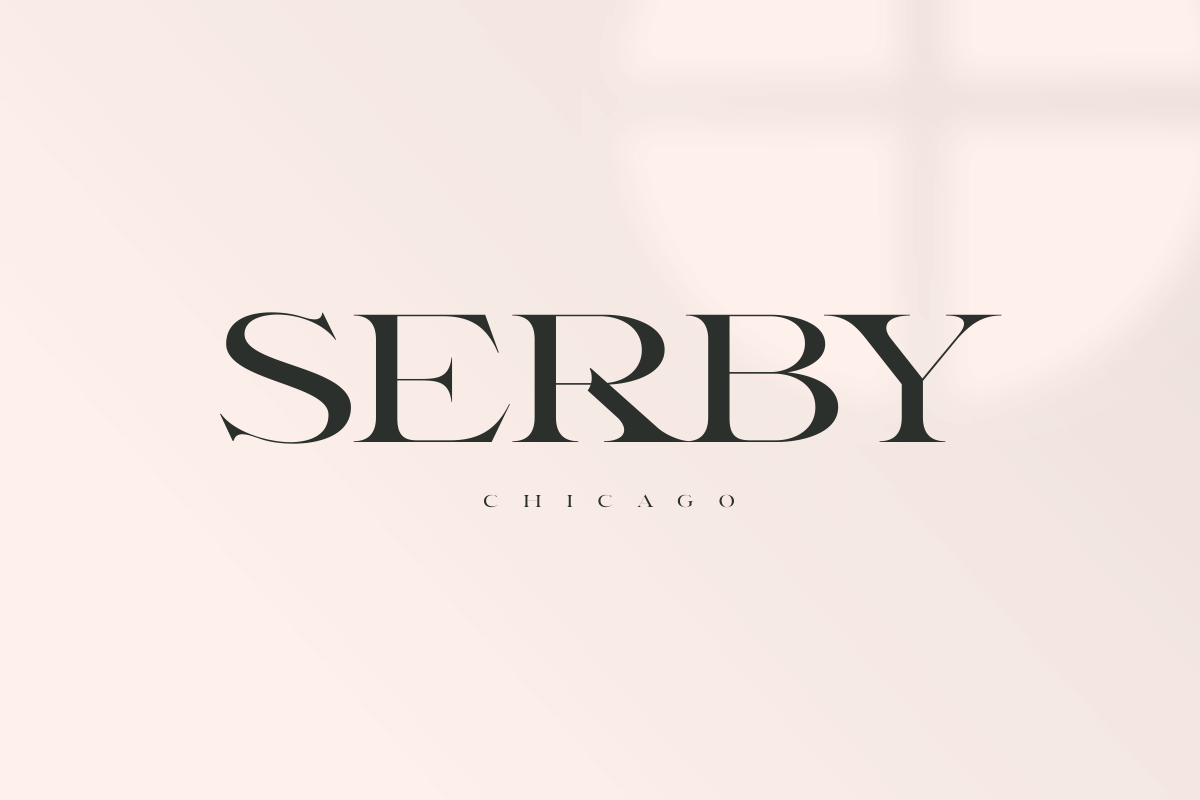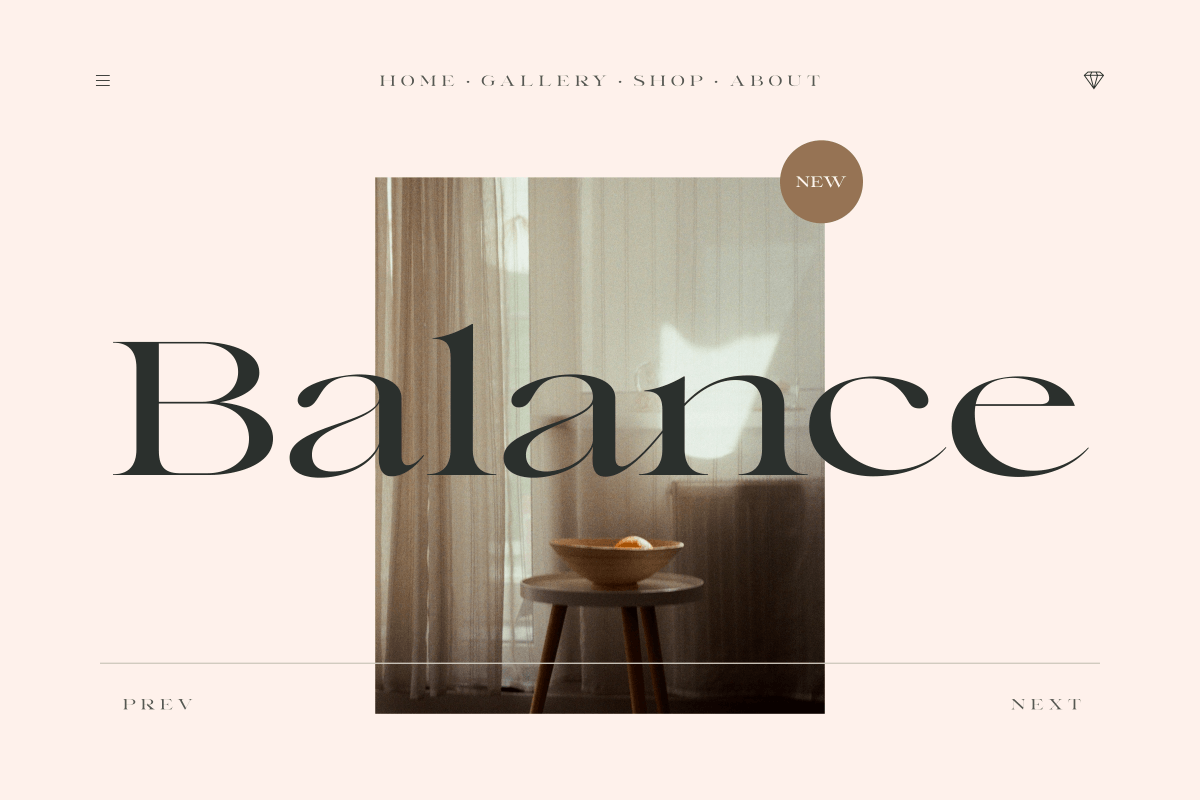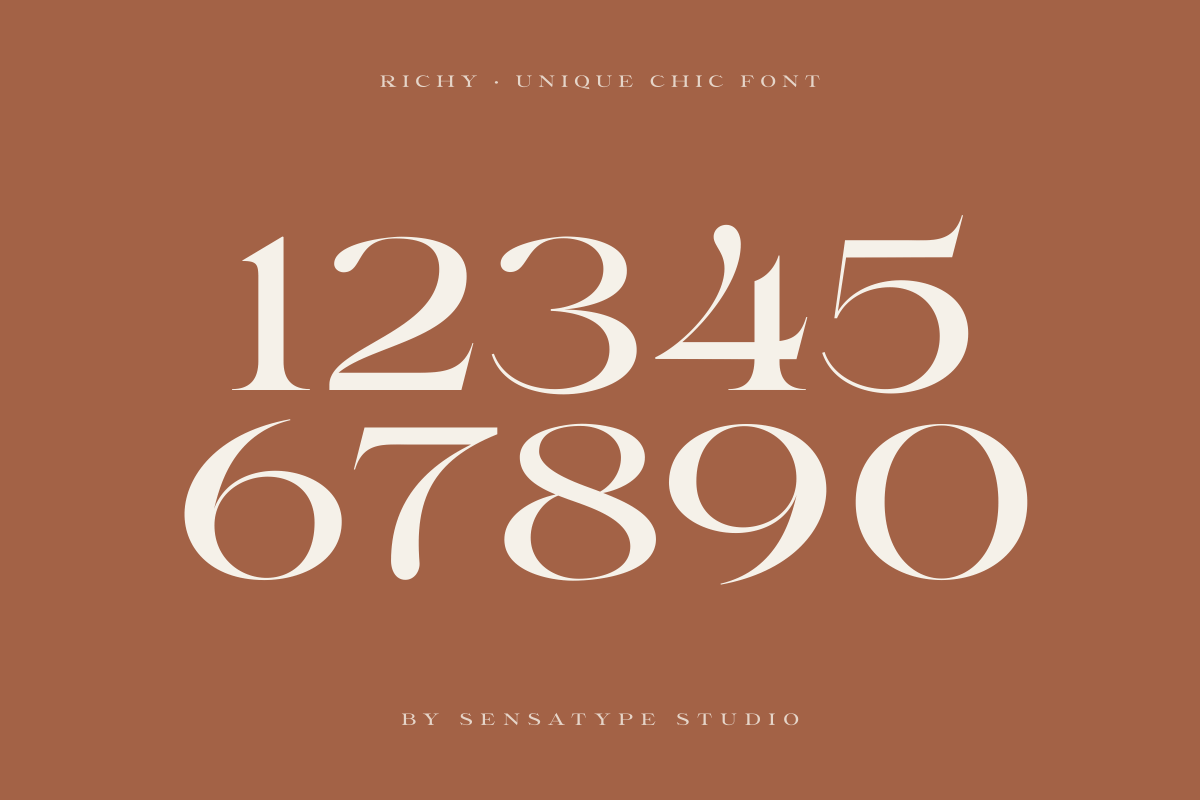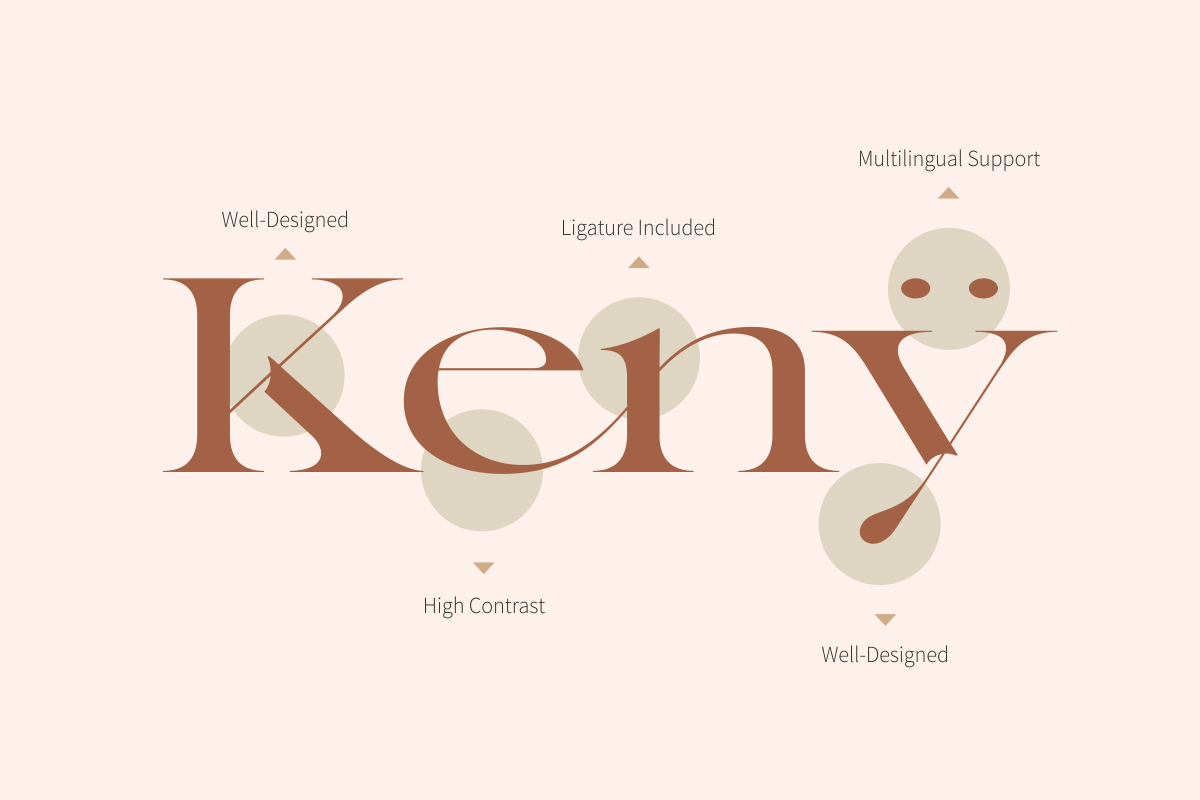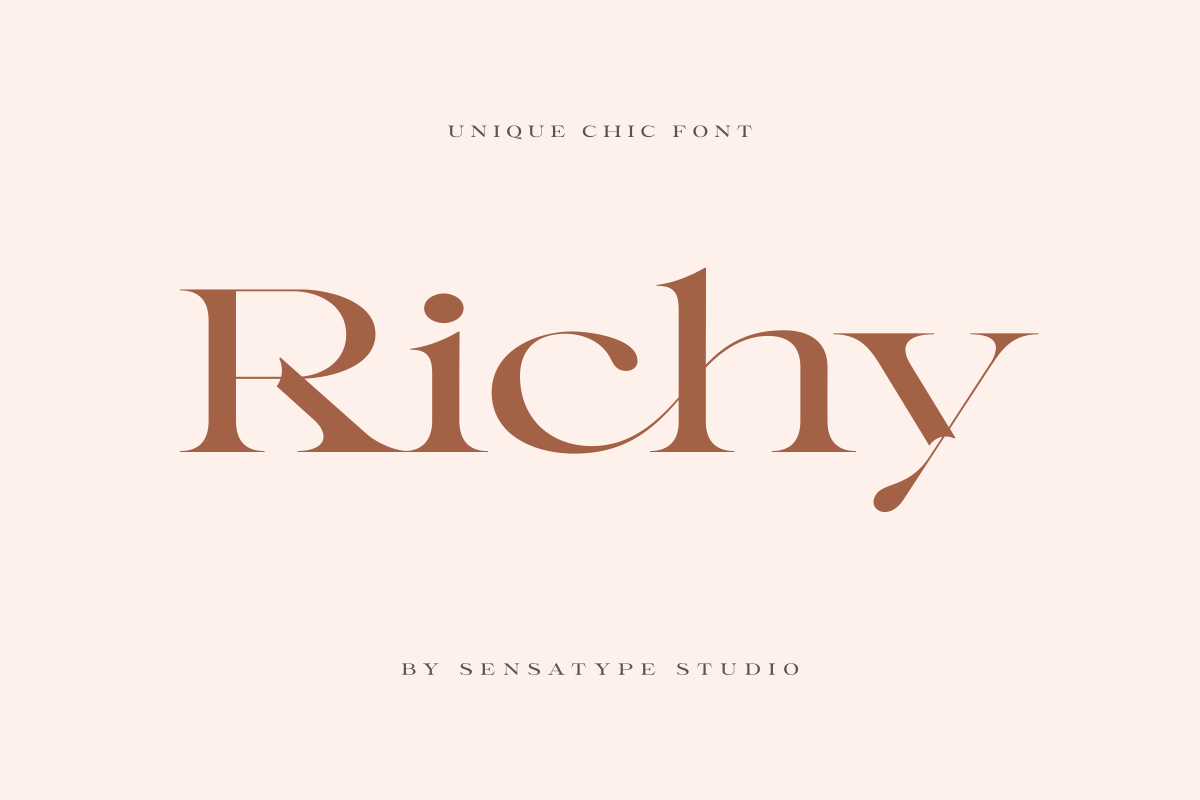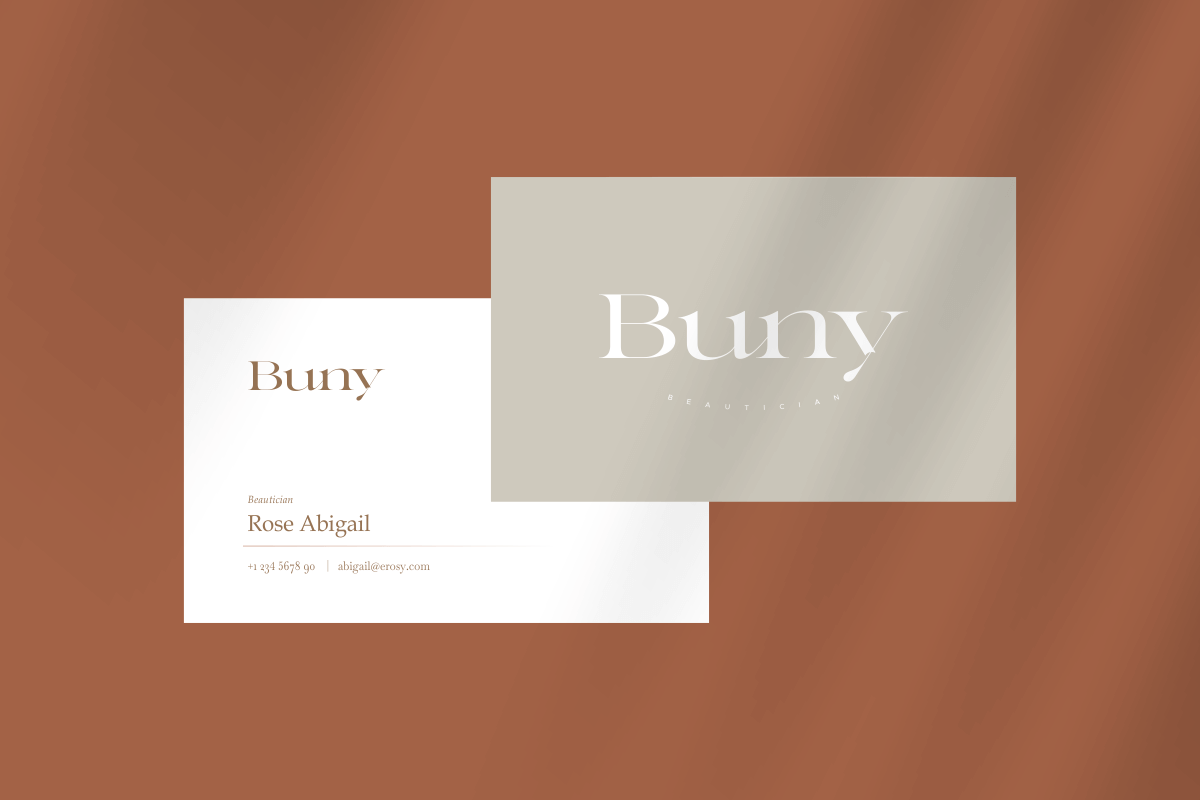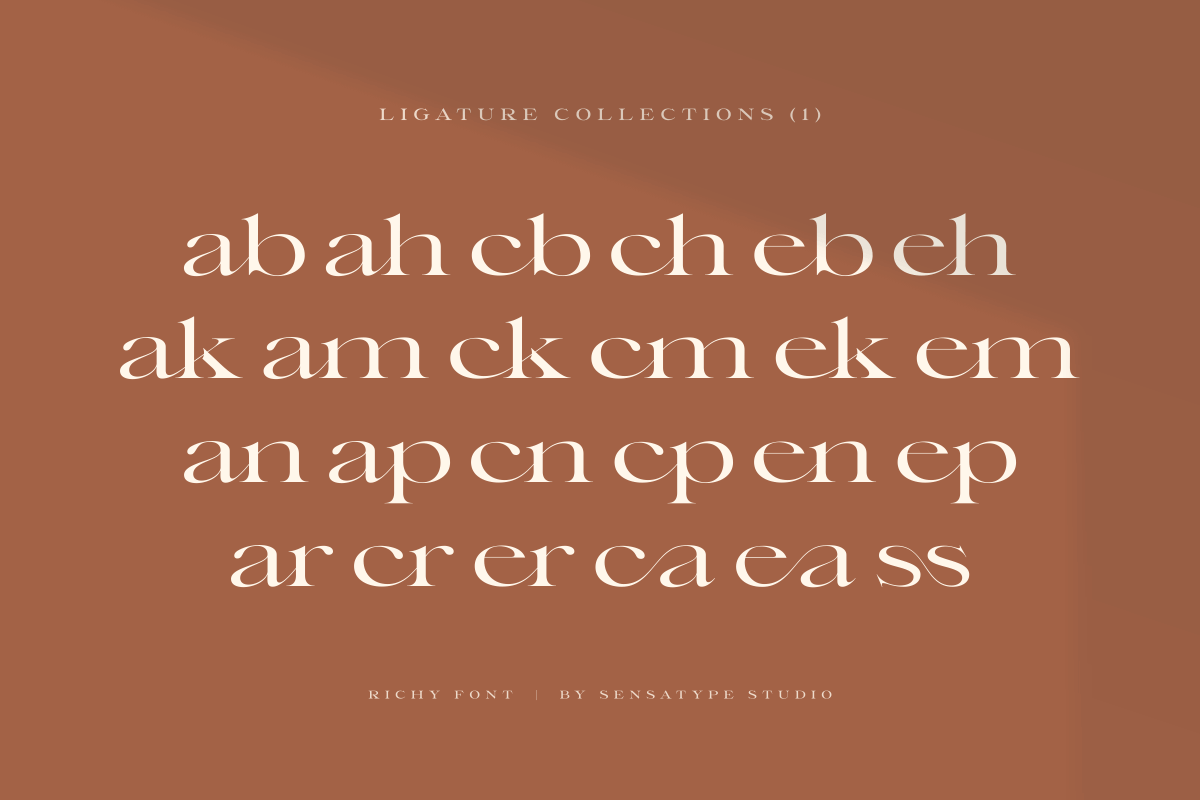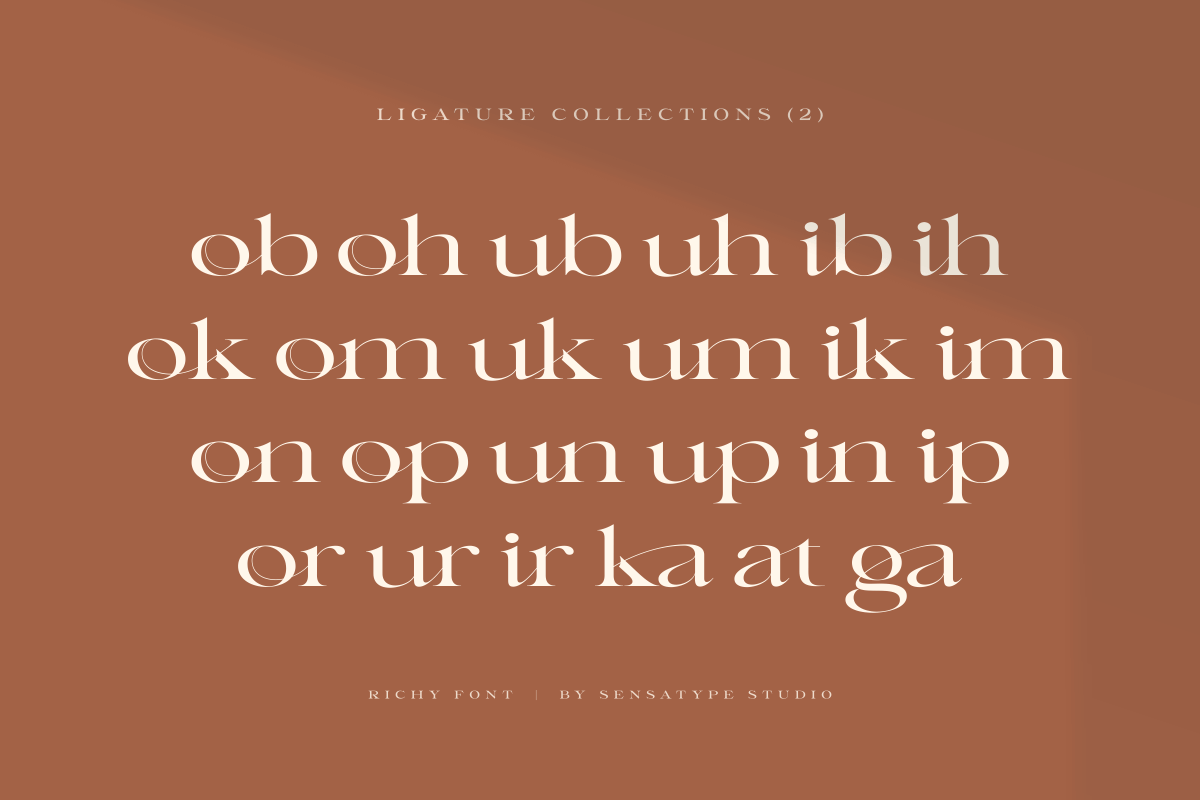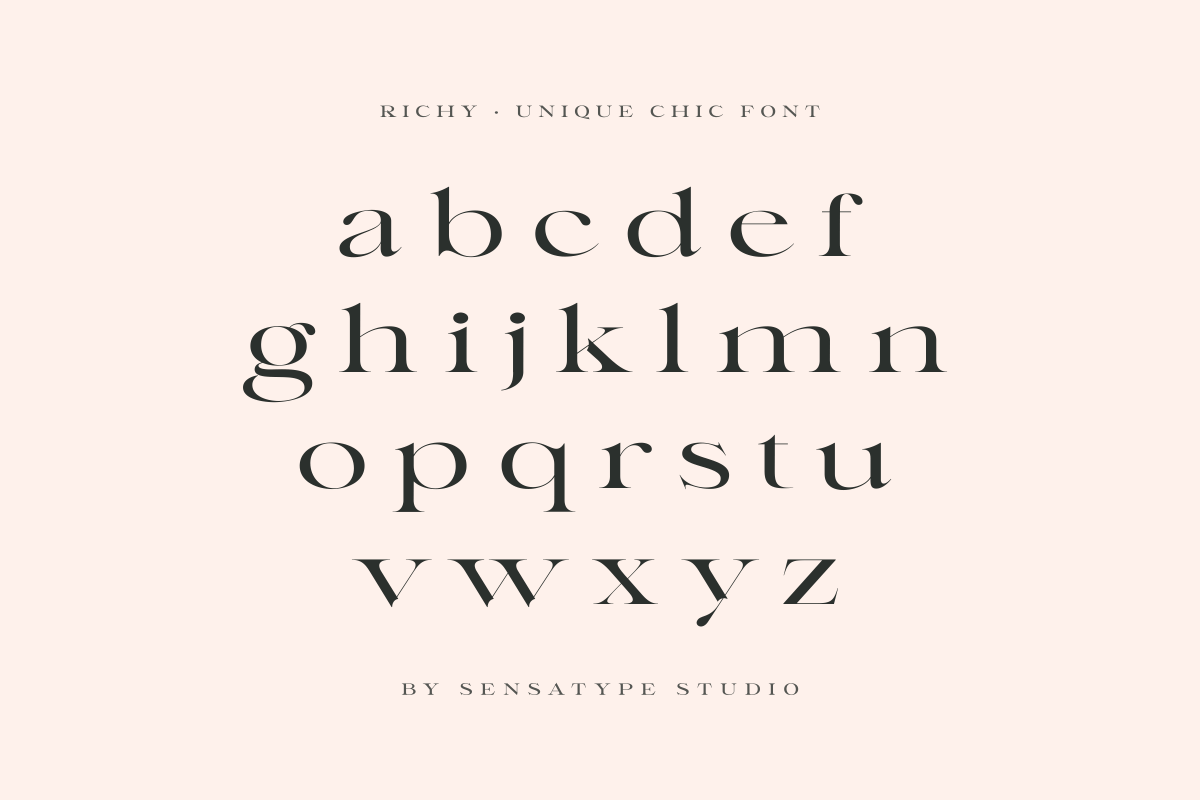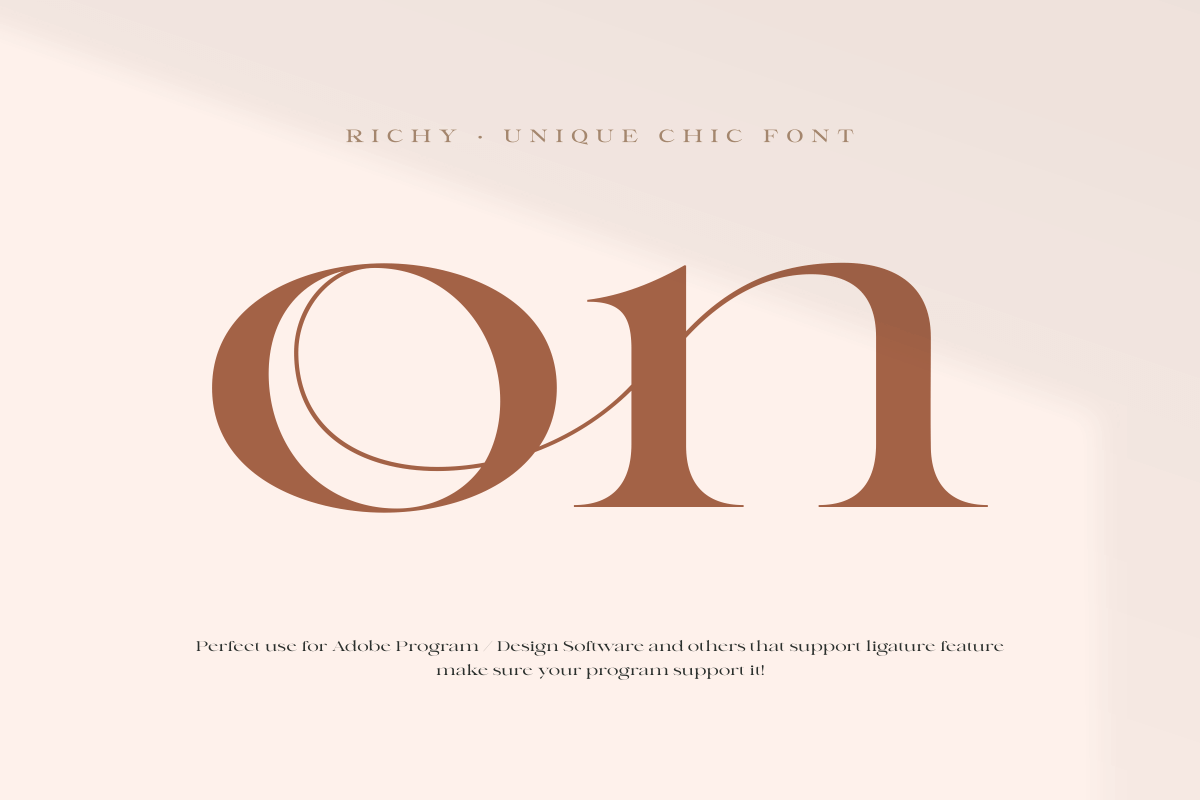
Richy - Unique Chic Font
Richy unique chic font with any beauty shape and fancy ligature suitable for brand and logo design. Crafted by graphic designer who works for a lot of companies, we often are requested to design a logo in a unique style but with a classy shape. So, we try to brainstorming and create this font to make the idea is going out. This is perfect for BRANDING and LOGO DESIGN. You will get classy, chic, and certainly unique logos with this font.
To make it look more unique, here we prepared some ligatures:
ab ah cb ch eb eh ak am ck cm ek em an ap cn cp en ep ar cr er ca ea ss ob oh ub uh ib ih ok om uk um ik im on op un up in ip or ur ir ka at ga
Richy-font is also included full set of:
- uppercase and lowercase letters
- multilingual support
- numerals
- punctuation